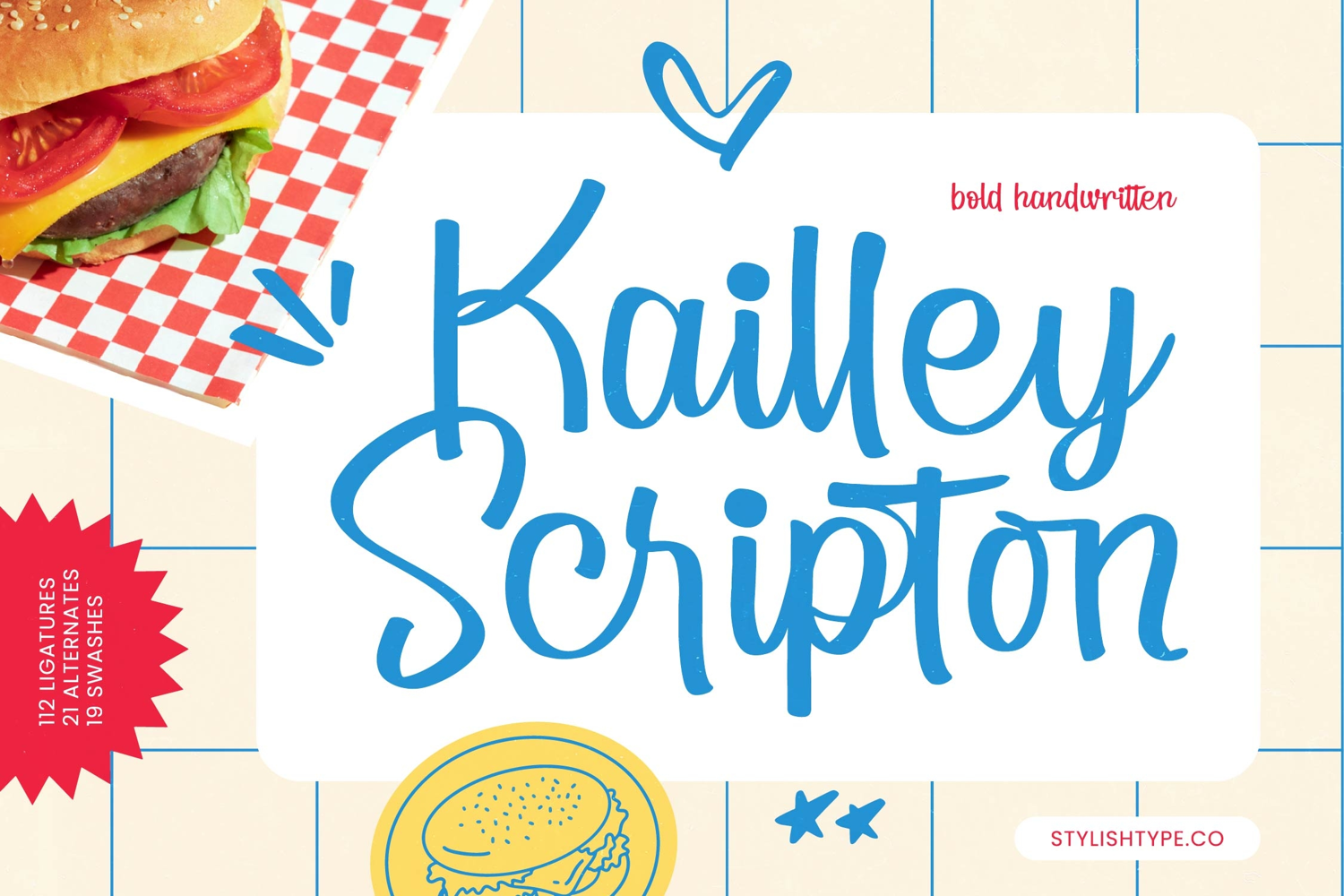
Kailley Scripton Bold Handwritten
Kailley Scripton – Bold Handwritten
Kailley Scripton is a bold handwritten script font crafted to deliver strong personality and instant visual impact. With thick, confident strokes and smooth flowing curves, this typeface captures the authentic feel of hand lettering while remaining clean and highly readable.
Designed for bold display use, Kailley Scripton brings energy and warmth to any project. Its expressive letterforms make it ideal for eye-catching headlines, standout branding, and designs that need a friendly yet powerful tone. The style feels modern, lively, and effortlessly stylish.
Kailley Scripton includes 112 ligatures, 21 stylistic alternates, and 19 swashes, giving you flexibility to create unique lettering combinations and custom compositions. The added alternates and swashes help you build distinctive logos, packaging, and promotional graphics with ease.
If you want a handwritten script that feels bold, playful, and professional at the same time, Kailley Scripton delivers.